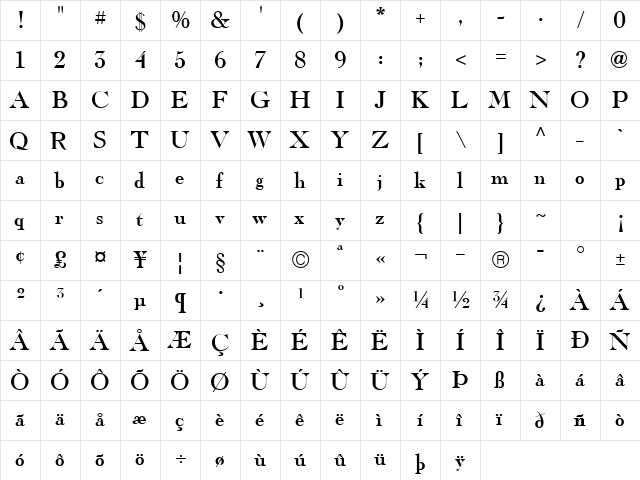
Caslon ICG Titling
Design Context for Caslon ICG Typeface
Caslon ICG offers clean, dependable letterforms without strong stylistic allegiance, making it a practical choice for designers who need flexibility.